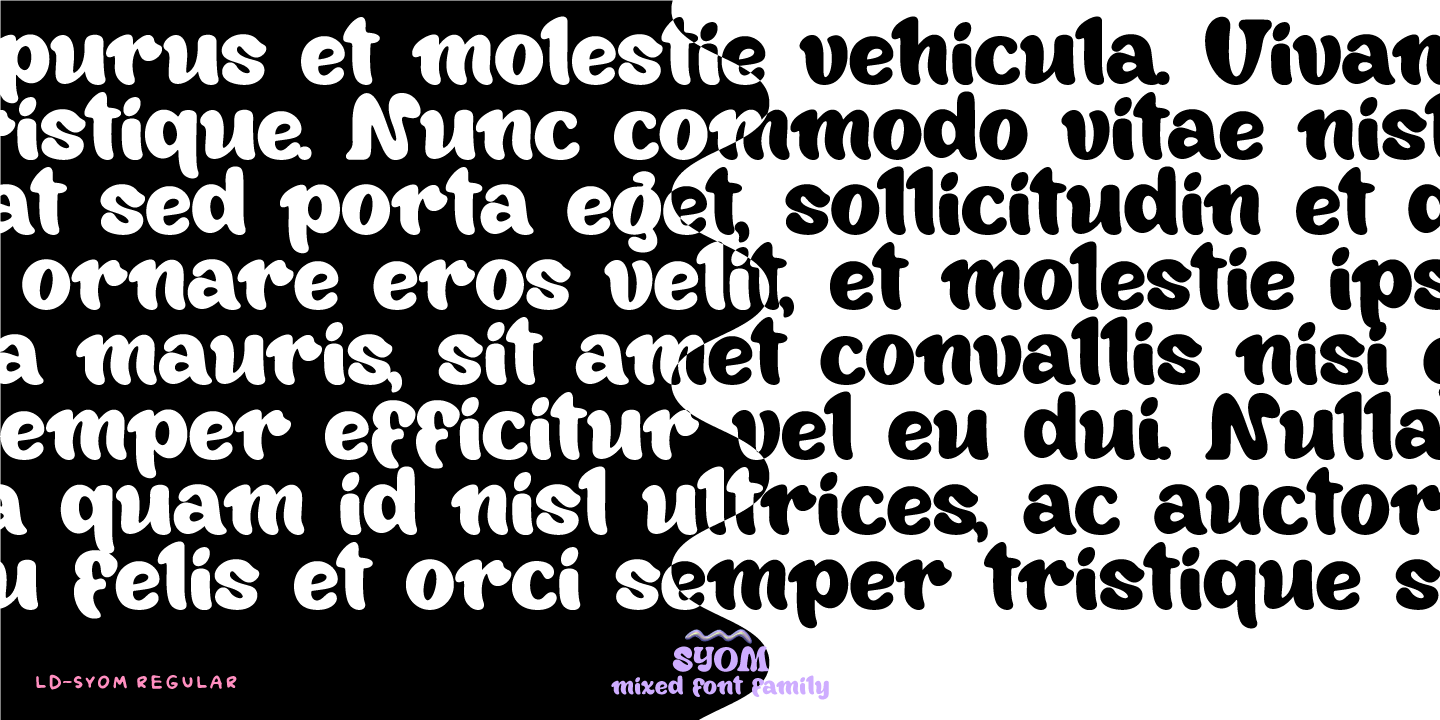
SYOM. Groovy Color Font Family.
Take a trip back in time with our unique color font family SYOM!
This is a font set that combines the spirit of nostalgia and modern fashion. The rounded and inflated shapes of the letters embody the atmosphere of decades of the last century, while remaining relevant in modern design.
In this family you will find everything you need to create unique projects. Classic solid color options are available to you, which are reminiscent of the beautiful retro era. For those who crave for vivid emotions, two color versions are presented - realistic 3D color fonts, as if your letters come to life in a pearly hologram gloss.
But that is not all! Each font is accompanied by additional options with design elements that will highlight the individuality of your project. Create stylish logos, stunning posters and unique designs - Syom gives you unlimited creative possibilities.
Immerse yourself in the atmosphere of the past, add a touch of retro charm to your projects, and boldly move into the future with this modern set of fonts.
Features:
- Real 3D effect
- Extras
- Multilingual
- Ability to adapt 3D letters to other languages
- Kerning